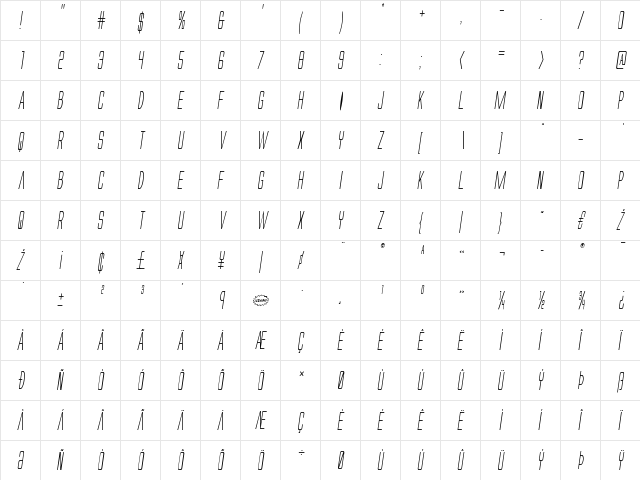
Alien League Condensed Italic Font Preview
Design Context for Alien League Condensed Italic Typeface
Alien League Condensed Italic takes a measured approach to typography — its balanced proportions and neutral character make it a reliable workhorse for both digital and print work. The slanted form adds forward momentum and visual energy. The condensed width makes it efficient for tight spaces without sacrificing legibility.